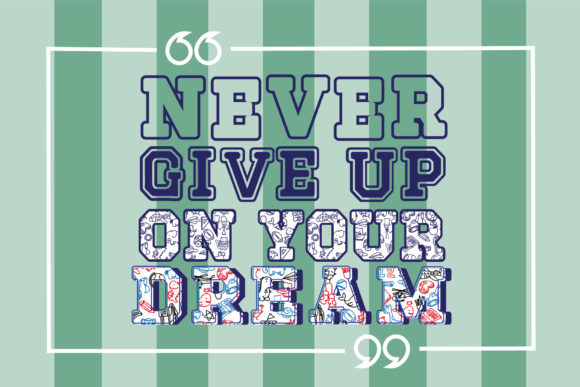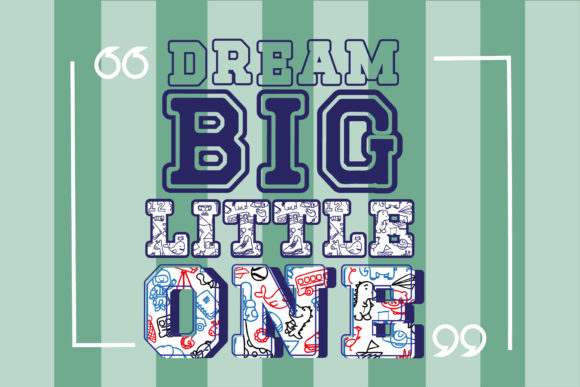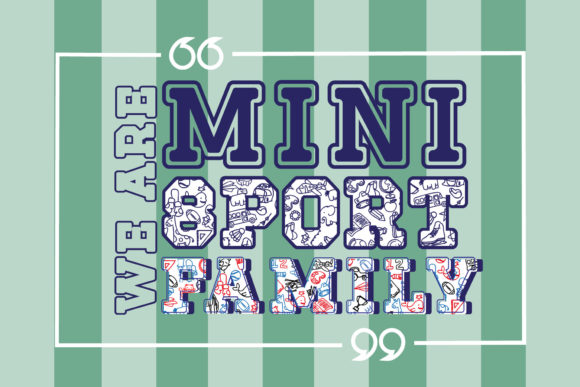
Introduction to Mini Sport Font
Remember the rush of excitement you felt when you first opened your box of new art supplies as a kid? The thrill of creating something entirely from scratch, with no limits on your imagination? That’s the magic of design, and that’s exactly what the Mini Sport Font is all about. This incredibly cool and fun-looking color font is a design resource like no other, perfect for bringing a touch of playfulness and authenticity to your next creative project.
Key Features of Mini Sport Font
- High-quality design: The Mini Sport Font is designed with precision and care to provide a unique and visually appealing aesthetic for your creative project.
- Unique characteristics: The Mini Sport Font features a distinctive, sporty design that is sure to add a touch of excitement to your creative project.
- Perfect for creative projects: The Mini Sport Font is ideal for use in creative projects such as sports branding, fitness design, and more.
Honest Review: Mini Sport Font
As a designer, I’m always on the lookout for unique and high-quality design resources to enhance my creative projects. The Mini Sport Font caught my attention with its modern and edgy feel, making it a great addition to any design portfolio.
- Unique and modern design aesthetic
- High quality and clear typography
- Perfect for sports-related creative projects or those with a bold, energetic vibe
- Transparent background, allowing for easy integration with custom backgrounds
- Limited character set, may not be suitable for longer text-based projects
- Not as versatile as other fonts, may not work well for formal or traditional designs
Overall, the Mini Sport Font is a great addition to any designer’s toolkit. Its modern design and high quality typography make it a great choice for creative projects, especially those with a sports or energetic theme. While it may have some limitations, it’s definitely worth downloading and experimenting with in your next design project.
Tips for Getting the Most Out of Mini Sport Font
For the best results, pair Mini Sport Font with a high-quality image or design element. You can also experiment with different font sizes, colors, and styles to create a unique look for your design project. Additionally, consider using the font in conjunction with other design resources to create a cohesive and engaging visual identity.
Mini Sport Font is a popular design resource for various creative projects, including sports-themed graphics, event posters, and social media promotions. Its free download and high-quality design make it an ideal choice for designers and non-designers alike.